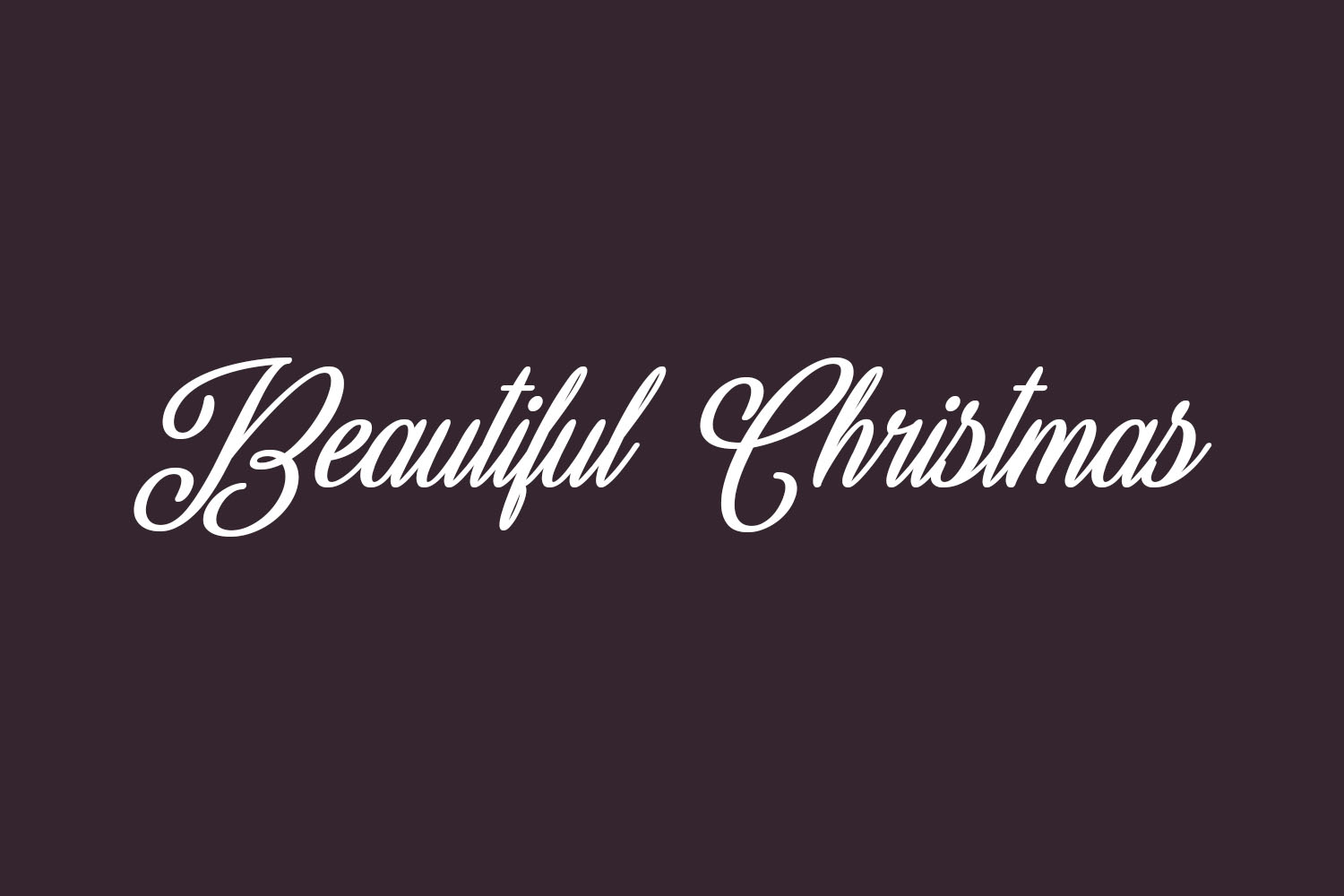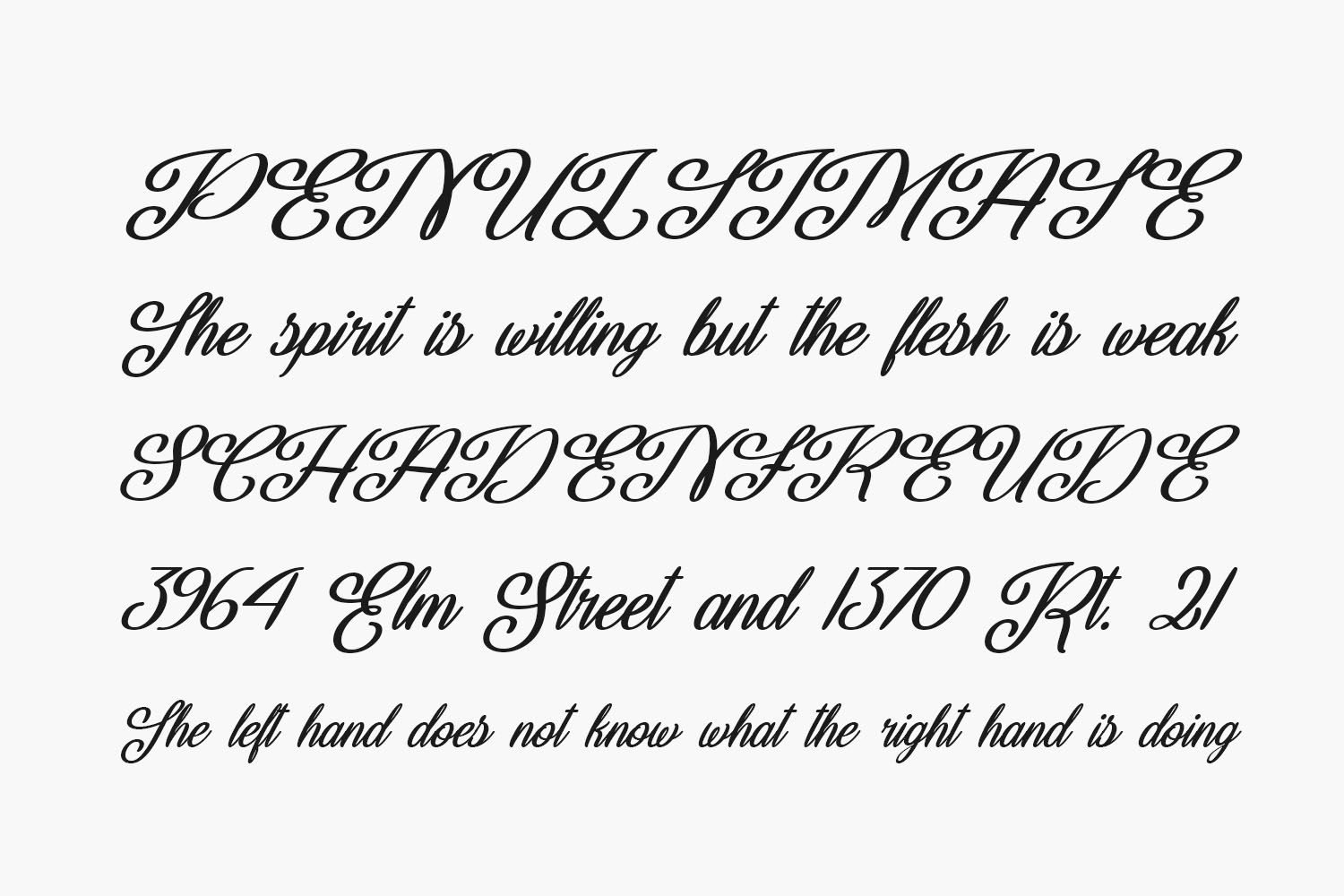
Meet the exquisite Beautiful Christmas Free Font, a slanted calligraphy typeface crafted to infuse elegance and festivity into your holiday designs! With delicate strokes and captivating flourishes, this font encapsulates the essence of the holiday season. Perfect for crafting greeting cards, invitations, and other festive designs, Beautiful Christmas font brings an air of sophistication with its elegant and graceful curves. Let its festive flair capture the joy and warmth of the season in your projects. Whether you’re working on a holiday-themed website or designing a special gift, the Beautiful Christmas font is bound to leave a lasting impression. Beautiful Christmas Free Font is free for personal use only. Please purchase the full version for commercial use.